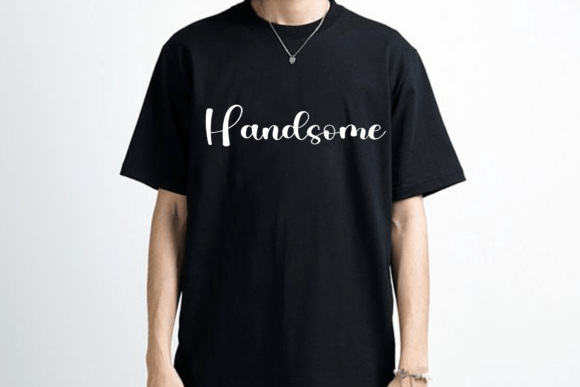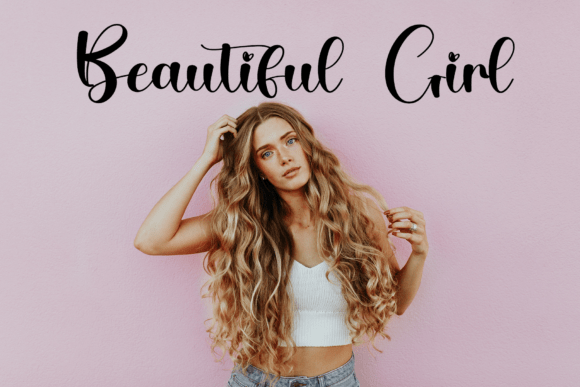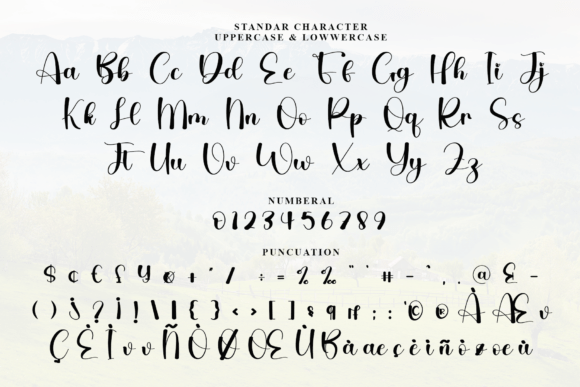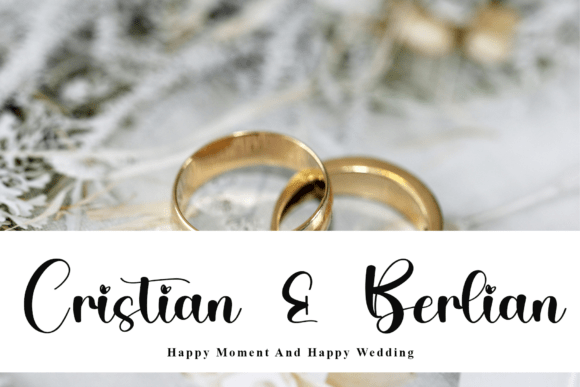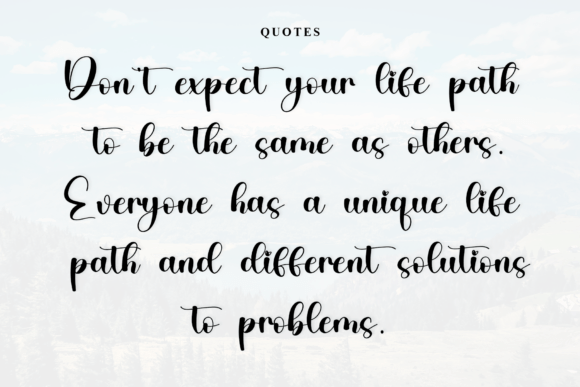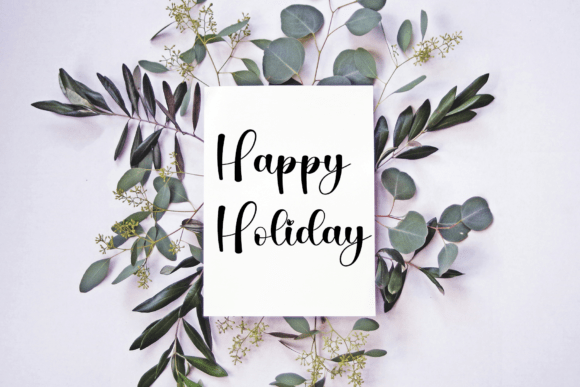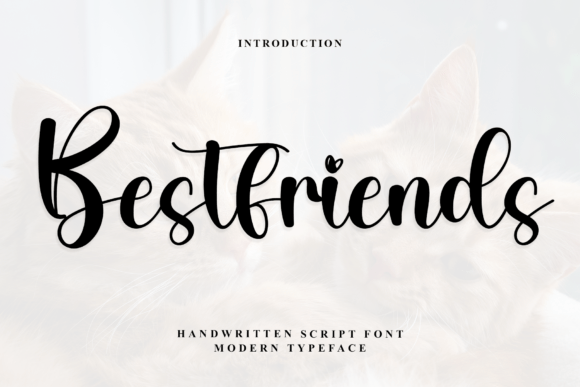
Introducing Bestfriends Font: The Perfect Handwritten Font for Unique Designs
Are you a designer or crafter looking for a font that can add a personal touch to your creations? Look no further than Bestfriends Font, a delicate handwritten font carefully crafted for a cool and unique design. In this article, we’ll explore the features and benefits of Bestfriends Font, and show you how it can be used to elevate your designs.
What is Bestfriends Font?
Bestfriends Font is a beautiful handwritten font that is perfect for creating unique and eye-catching designs. Its delicate lines and curves give it a personal and friendly feel, making it ideal for a wide range of applications. Whether you’re creating invitations, writing letters, designing food products, or crafting titles, Bestfriends Font is the perfect choice.
Key Features of Bestfriends Font
- Delicate Handwritten Style: Bestfriends Font features a delicate handwritten style that is both elegant and playful.
- Unique and Cool Design: This font has a unique and cool design that will set your creations apart from the rest.
- Versatile: Bestfriends Font can be used for a wide range of applications, including letters, invitations, food products, titles, and more.
- Easily Readable: Despite its delicate nature, Bestfriends Font is easily readable, making it perfect for body text and headings.
Uses of Bestfriends Font
Bestfriends Font is a versatile font that can be used in a variety of ways. Here are some ideas to get you started:
- Invitations: Use Bestfriends Font to create beautiful and unique invitations for weddings, birthday parties, and other special occasions.
- Letter Writing: Add a personal touch to your letters with Bestfriends Font, making them feel more like handwritten notes.
- Food Products: Use Bestfriends Font to create labels and packaging for food products, such as baked goods, jams, and chocolates.
- Titles and Headings: Use Bestfriends Font to create eye-catching titles and headings for your blog posts, articles, and social media graphics.
- Crafting: Bestfriends Font is perfect for crafters who want to add a personal touch to their projects, such as scrapbooking, card making, and DIY crafts.
Benefits of Using Bestfriends Font
Using Bestfriends Font in your designs can have several benefits, including:
- Unique and Personal Touch: Bestfriends Font adds a unique and personal touch to your designs, making them stand out from the rest.
- Easily Customizable: Bestfriends Font is easily customizable, allowing you to adjust the size, color, and style to fit your design needs.
- Time-Saving: With Bestfriends Font, you can create professional-looking designs in no time, saving you time and effort.
Tips for Using Bestfriends Font
Here are some tips for using Bestfriends Font in your designs:
- Use it with Other Fonts: Bestfriends Font pairs well with other fonts, so feel free to experiment with different combinations.
- Adjust the Size and Color: Adjust the size and color of Bestfriends Font to fit your design needs.
- Use it for Body Text: Bestfriends Font is easily readable, making it perfect for body text and paragraphs.
- Experiment with Different Styles: Bestfriends Font has a range of styles and variations, so experiment with different styles to find the one that works best for your design.
Bestfriends Font is a beautiful and versatile handwritten font that is perfect for designers and crafters who want to add a personal touch to their creations. With its delicate lines and curves, unique and cool design, and easily readable style, Bestfriends Font is the perfect choice for a wide range of applications. Whether you’re creating invitations, writing letters, designing food products, or crafting titles, Bestfriends Font is sure to elevate your designs and make them stand out from the rest.